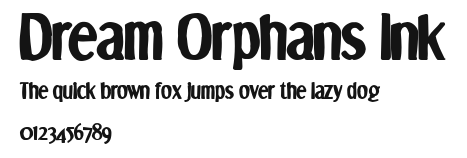
• Font Name: Dream Orphans Ink
• Full Font Name: Dream Orphans Ink
• Designer: Ray Larabie
About Dream Orphans Ink.ttf
Dream Orphans Ink.ttf is a modern, elegant sans-serif font designed for ultimate readability and visual harmony. Perfect for branding, headlines, web design, and print materials.